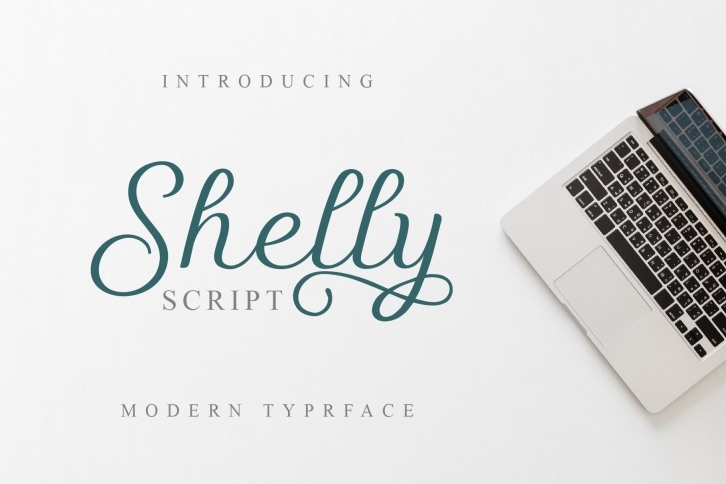
Shelly Script is a fresh & modern script with a handmade calligraphy style. Shelly features decorative characters and a dancing baseline!
Shelly works great for many different uses such as invitations, greeting cards, branding materials, business cards, quotes & posters, lettering and much more.